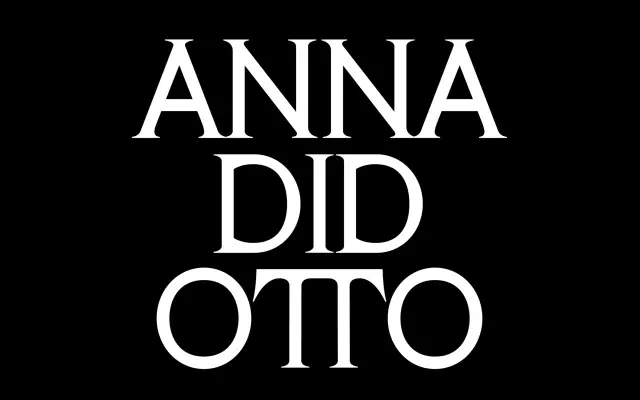
Phlegm
A display serif rooted in American 1970s typography, designed as a tribute to Herb Lubalin and inflected with the expressive character of Ed Benguiat's ITC work.
Designed by Eliott Grunewald, Phlegm takes its name from Herb Lubalin's reported favourite word, published in the 1978 issue of U&lc. The design began as a synthesis of several American typefaces from that decade before being reworked to strip away most stroke contrast, push the serifs outward and lean into a Benguiat-like fibre. The result suits posters, album covers and urban-oriented work where raw, unconventional letterforms are the point.
Phlegm draws on American 1970s typography with accentuated serifs and minimal stroke contrast, evoking the ITC Benguiat style; its expressive, gritty letterforms place it firmly in display serif territory rather than text use.